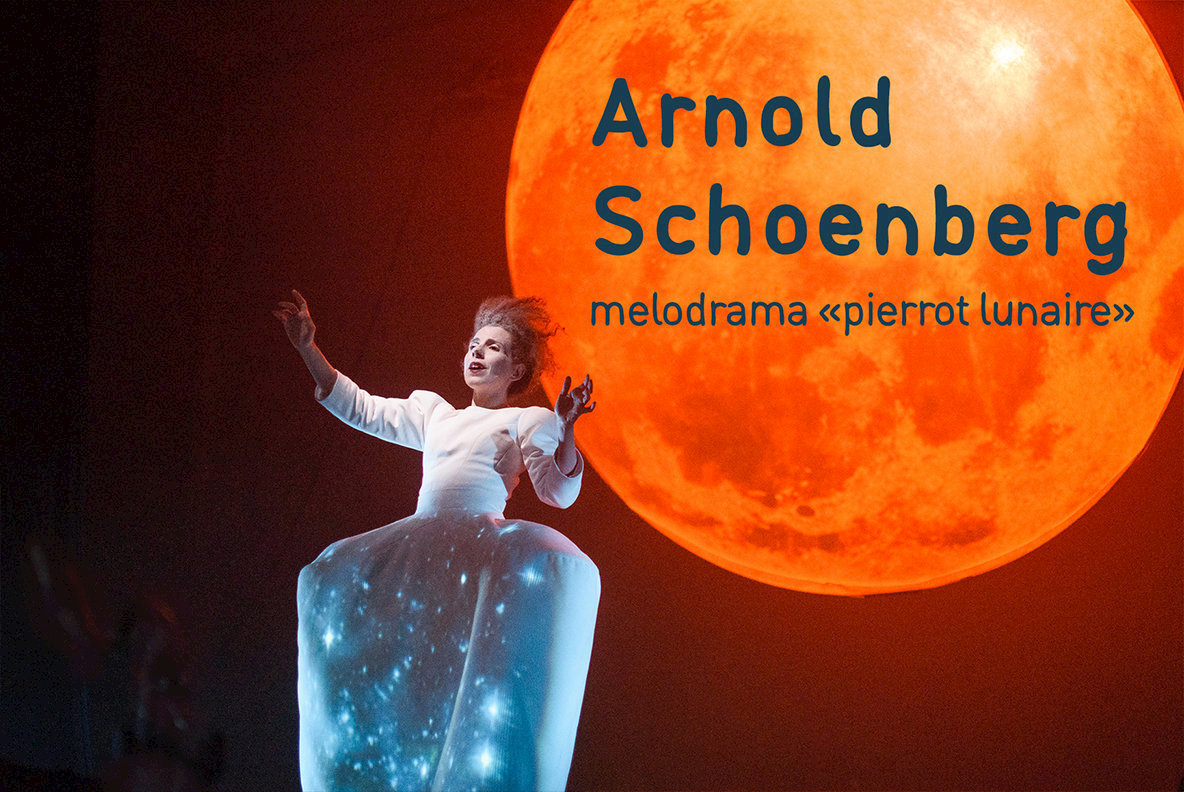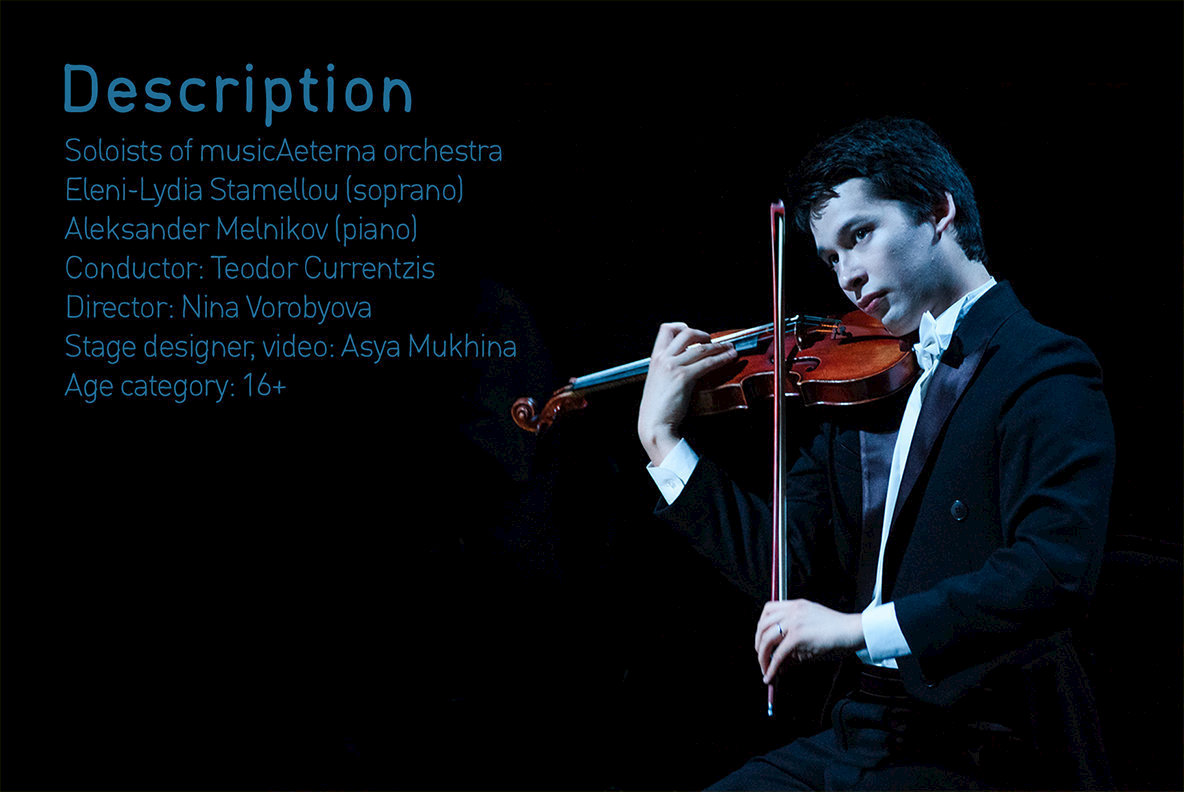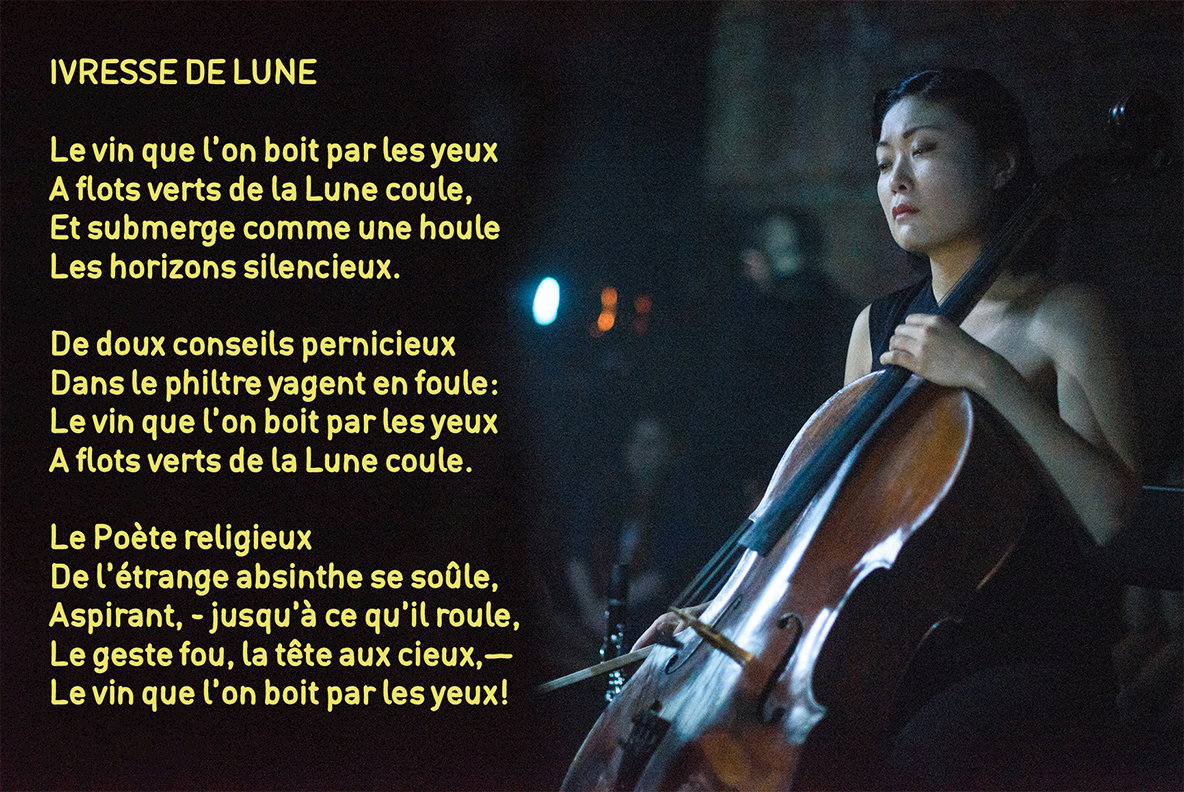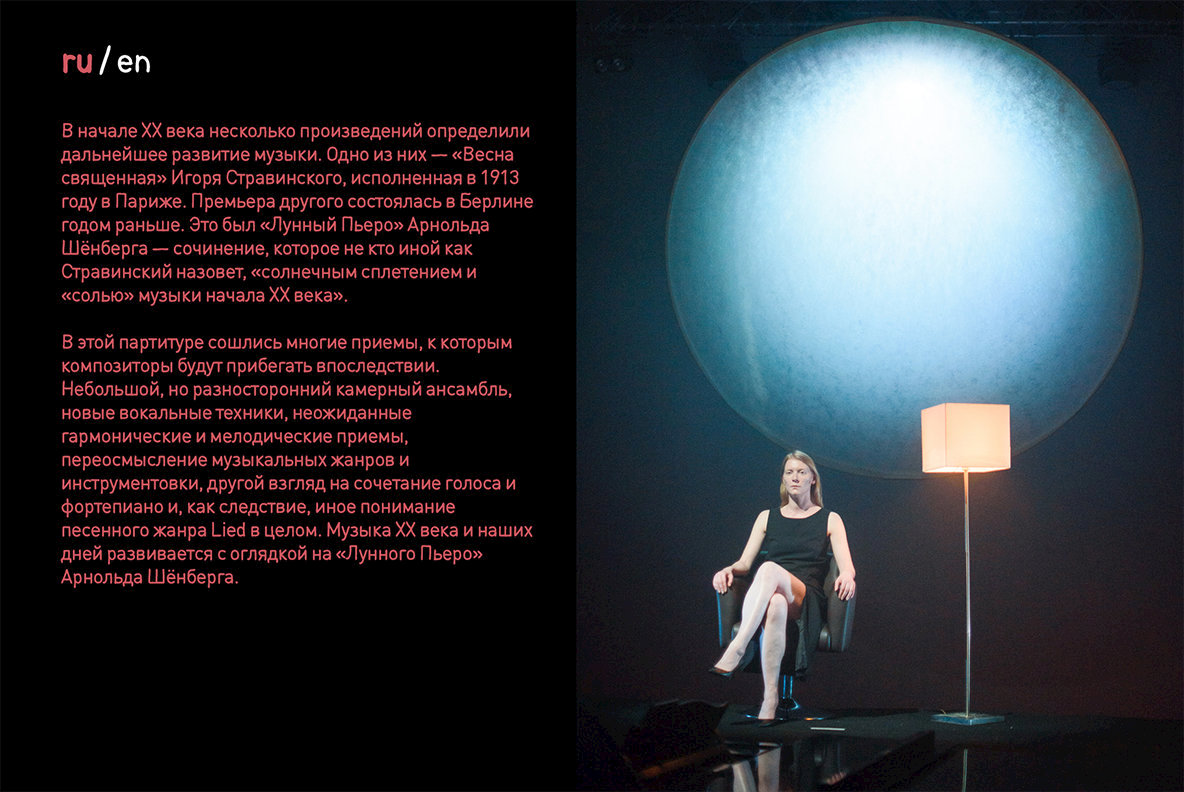
Lunar Font
Lunar is a captivating handwritten sans serif typeface designed by Etewut Foundry, initially crafted for the renowned opera Pierrot Lunaire during the Diaghilev Festival 2018 in Perm. This typeface embodies the spirit of artistic sophistication, making it an ideal choice for graphic designers seeking a unique yet relatable aesthetic. Its minimalist design ensures versatility across various creative projects.Lunar: Handwritten Sans Serif for Artistic Expression